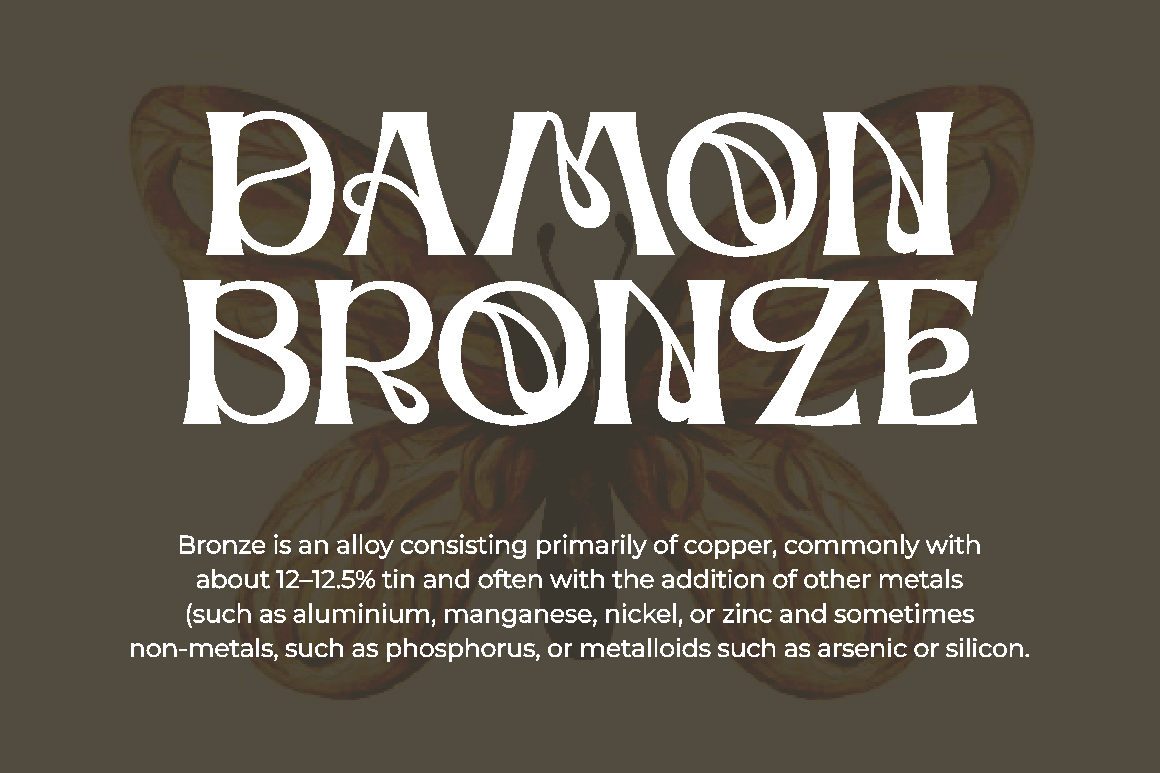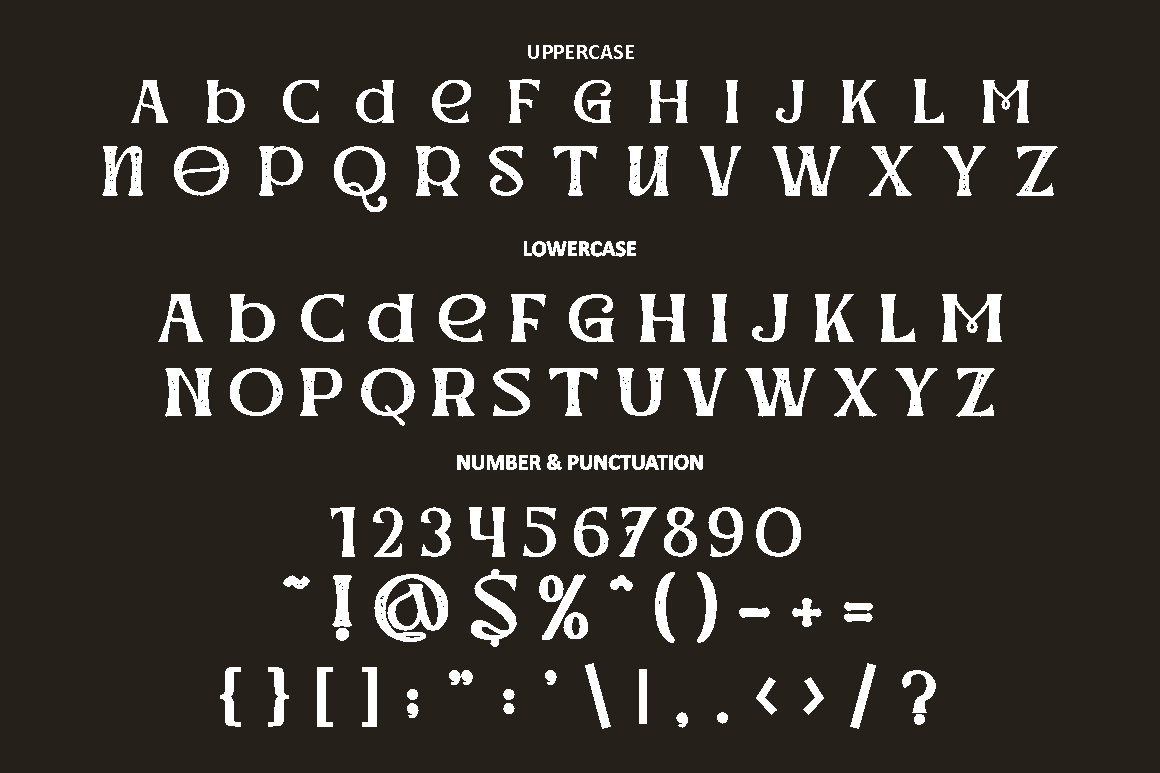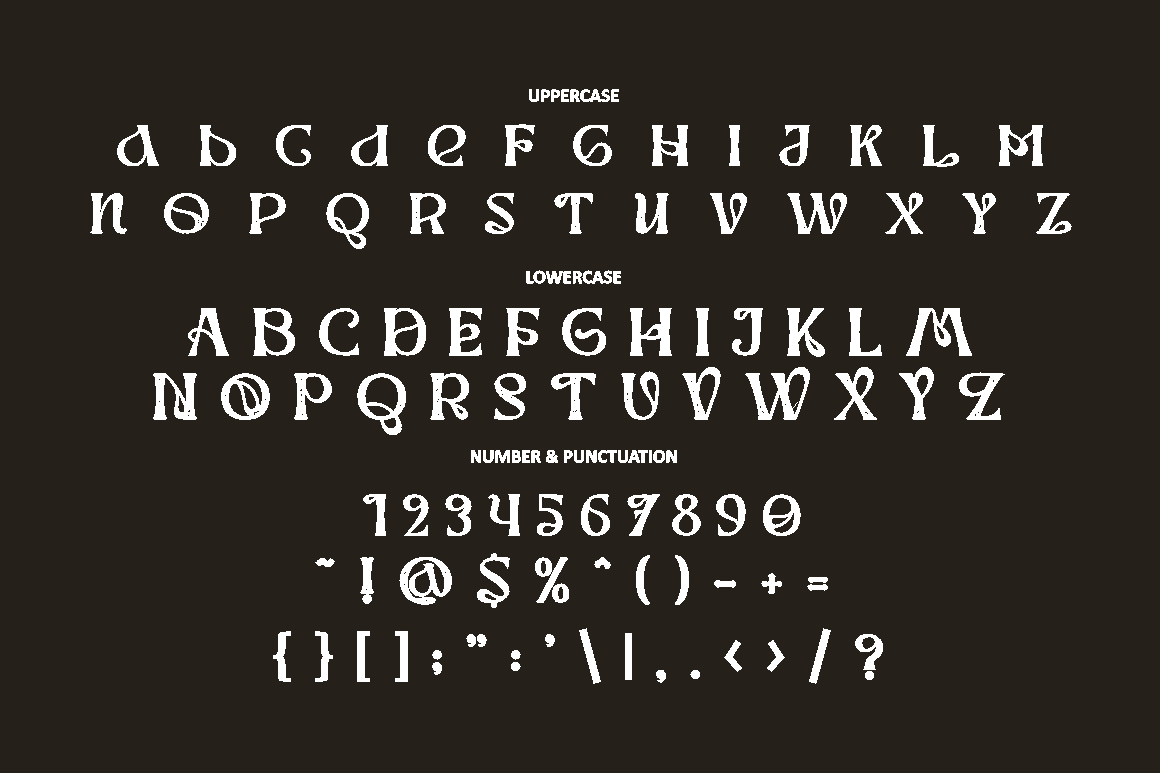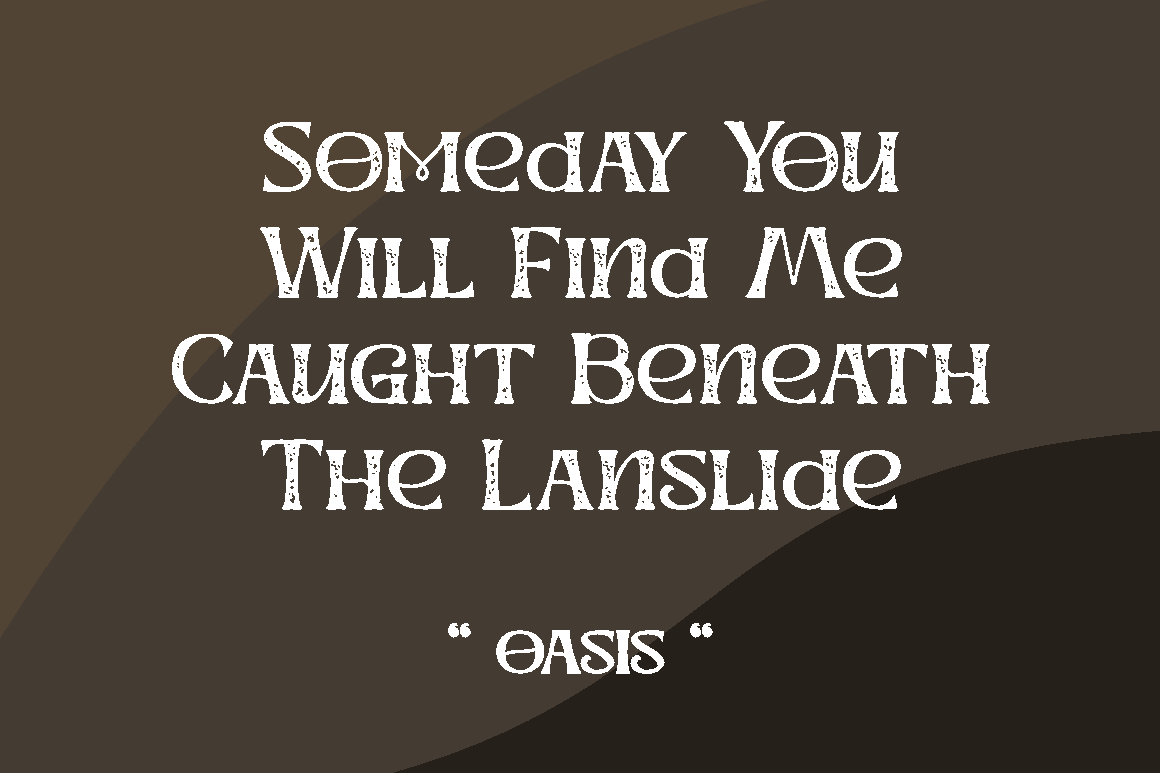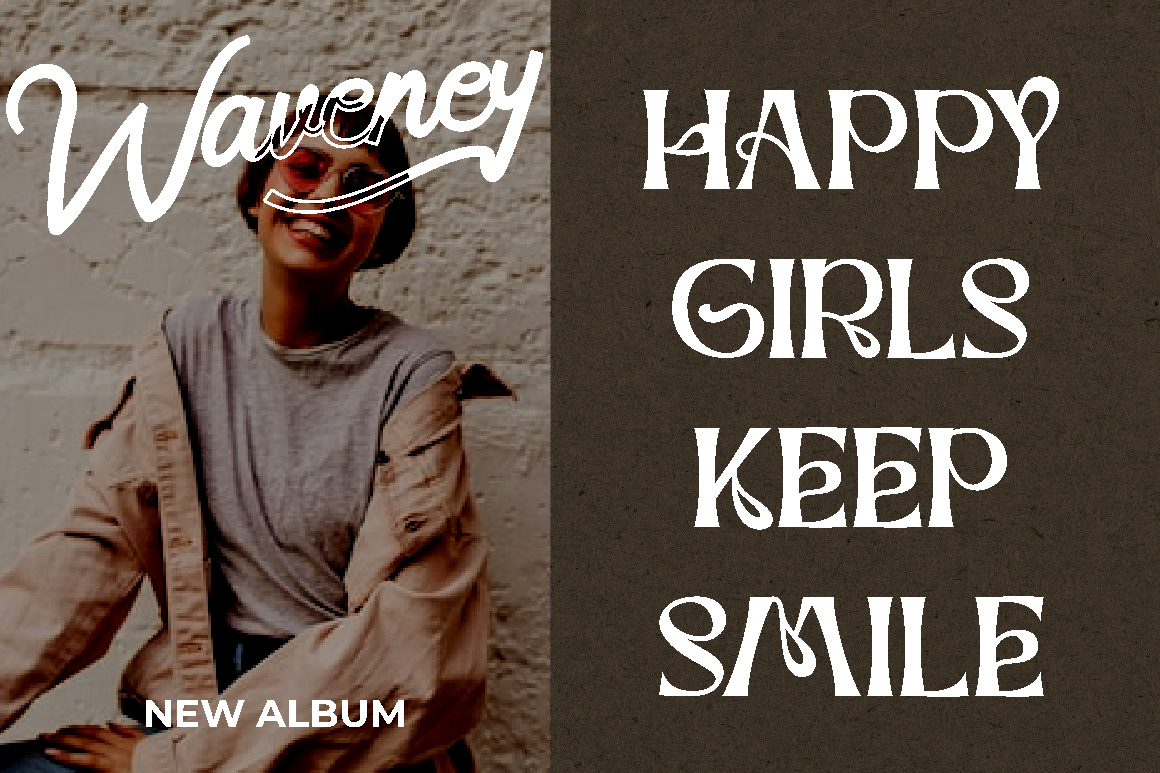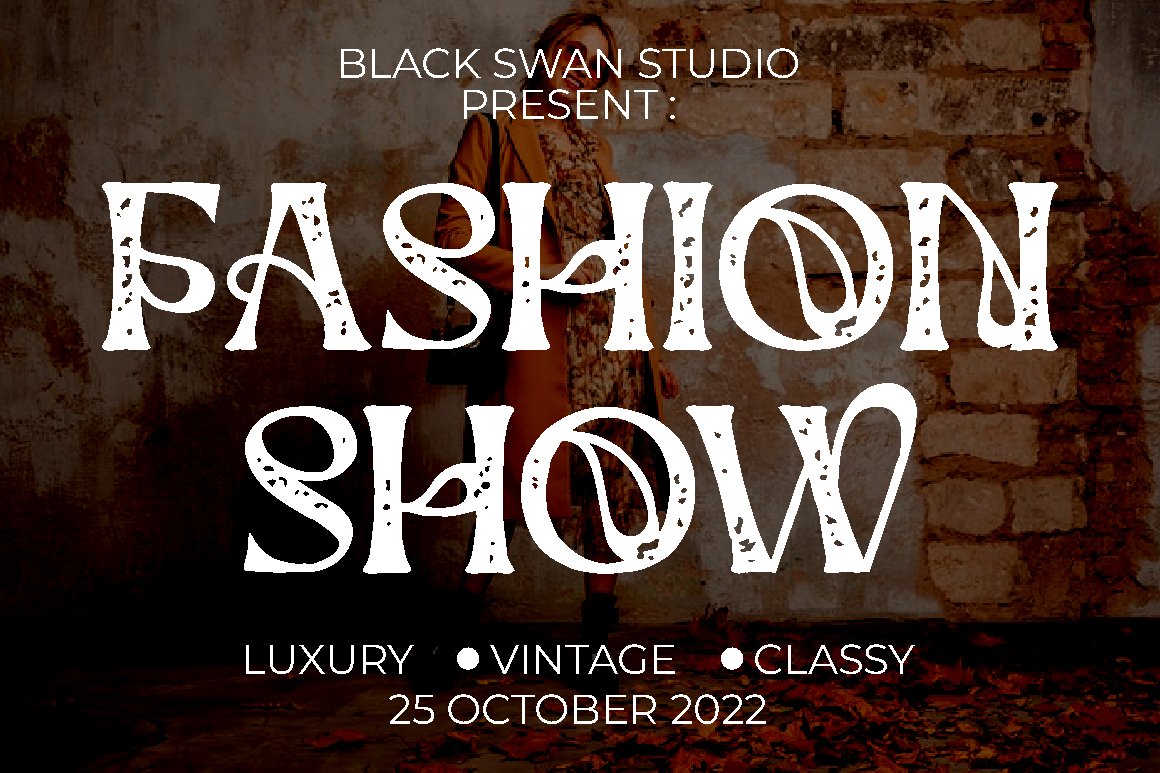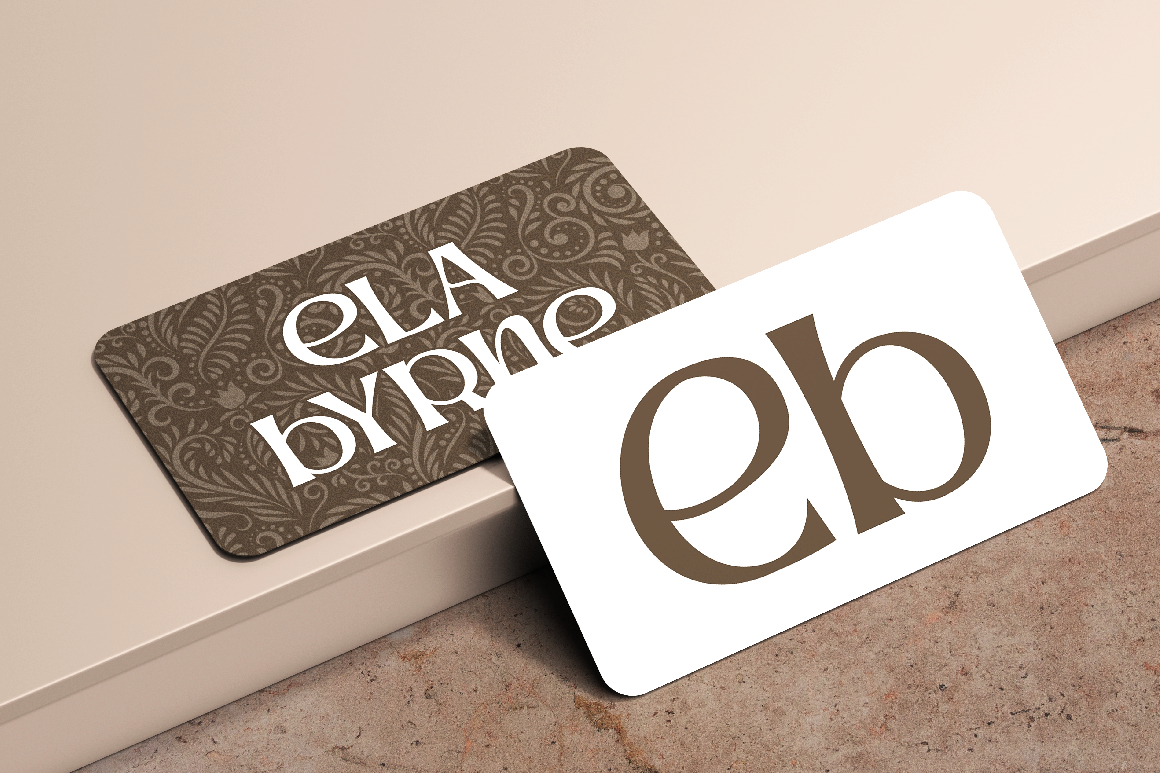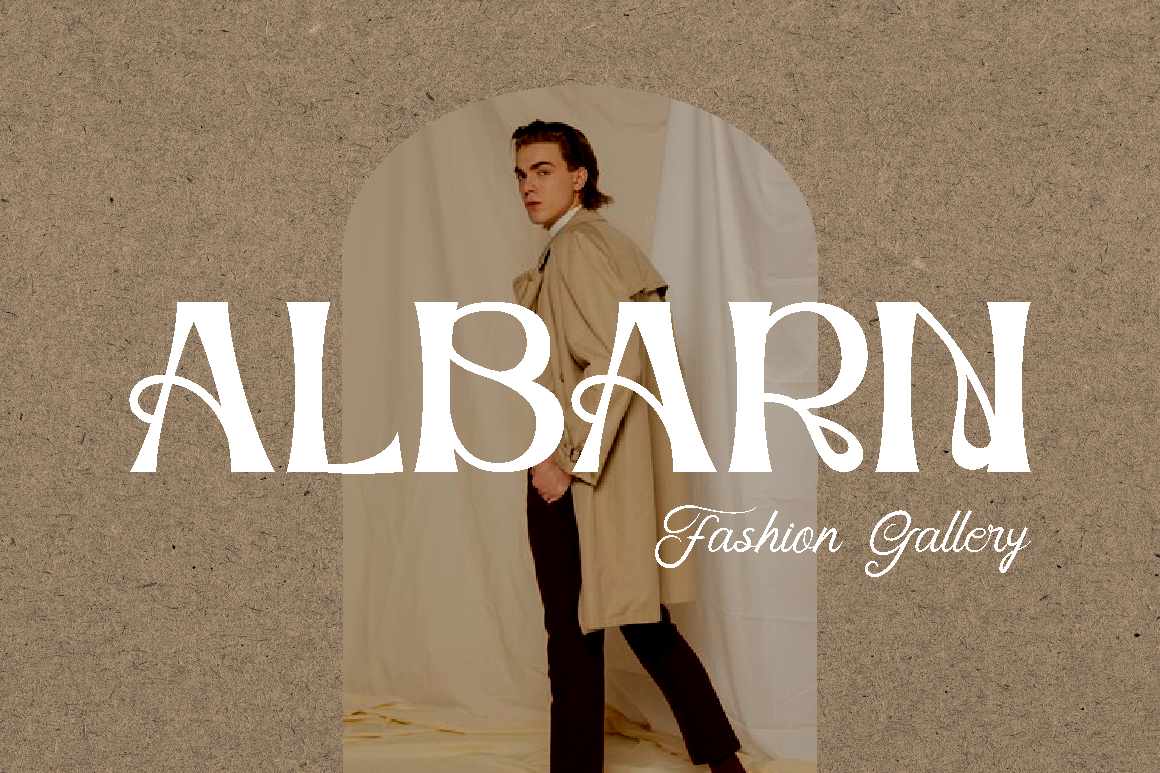
Introducing Werd Modern Stylish Serif Font
Werd Font is a contemporary and chic typeface designed by PutraCetol Studio. Its unique and eye-catching design is well-proportioned and balanced, making it versatile for a range of design projects.